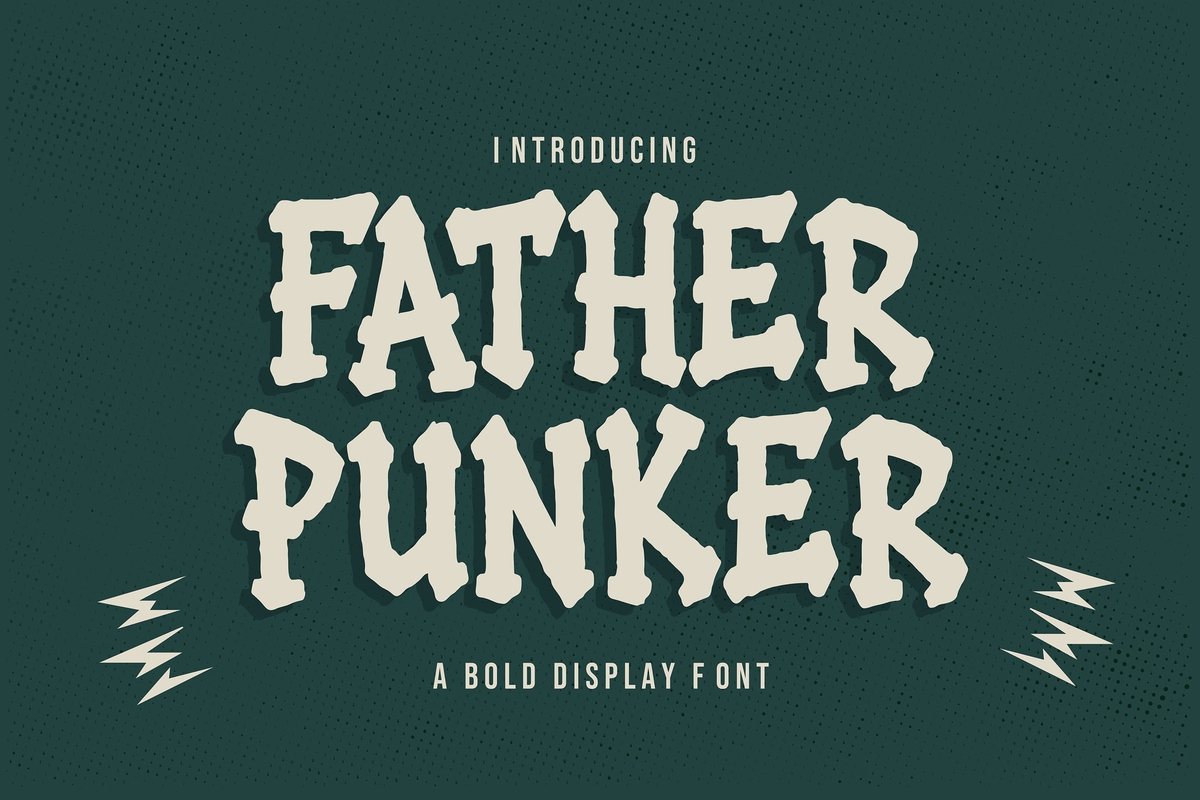
Father Punker
Introducing Father Punker, a bold punk-inspired display font designed with rebellious energy, rough vintage attitude, and powerful handcrafted character. Inspired by underground punk culture, retro gig posters, garage band aesthetics, tattoo art, and distressed street typography, Father Punker delivers strong visual impact with raw expressive personality. Featuring rugged edges, chunky bold forms, and handcrafted imperfections, Father Punker creates typography that feels loud, energetic, and un